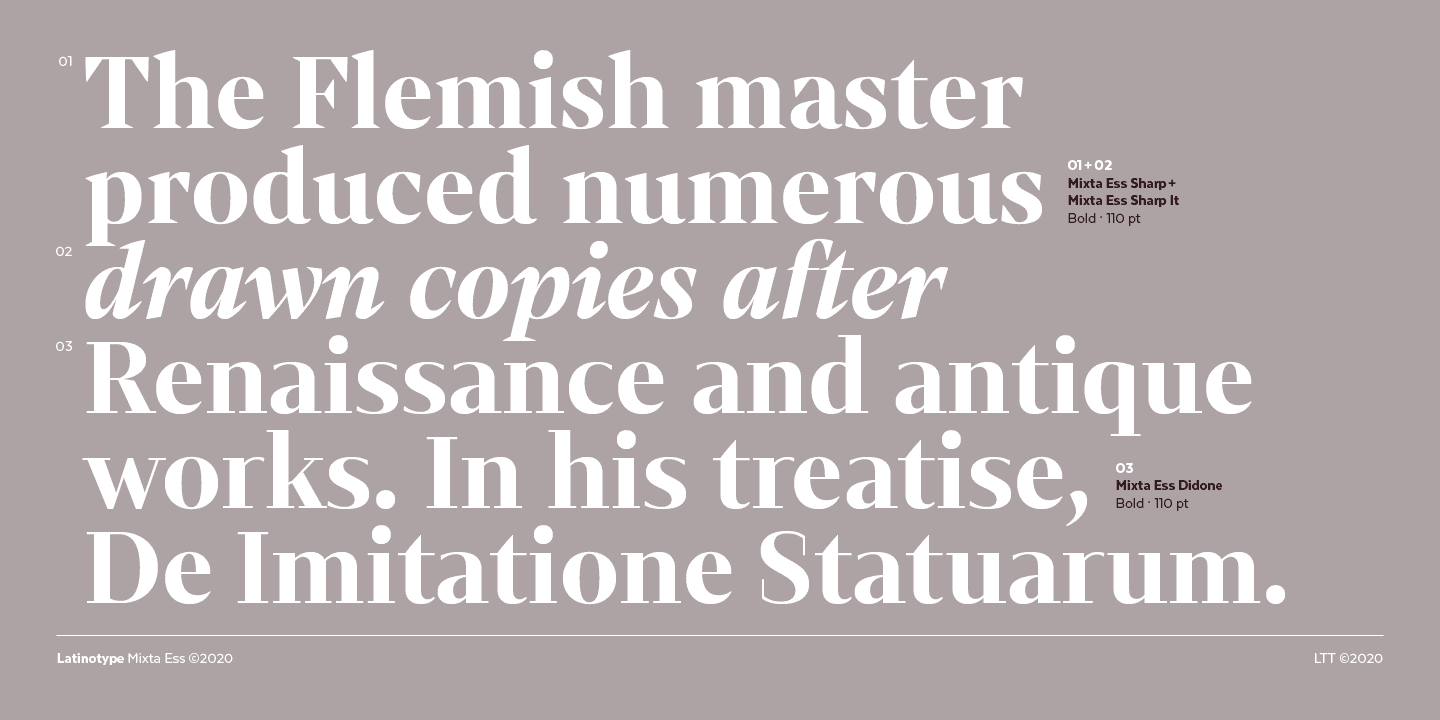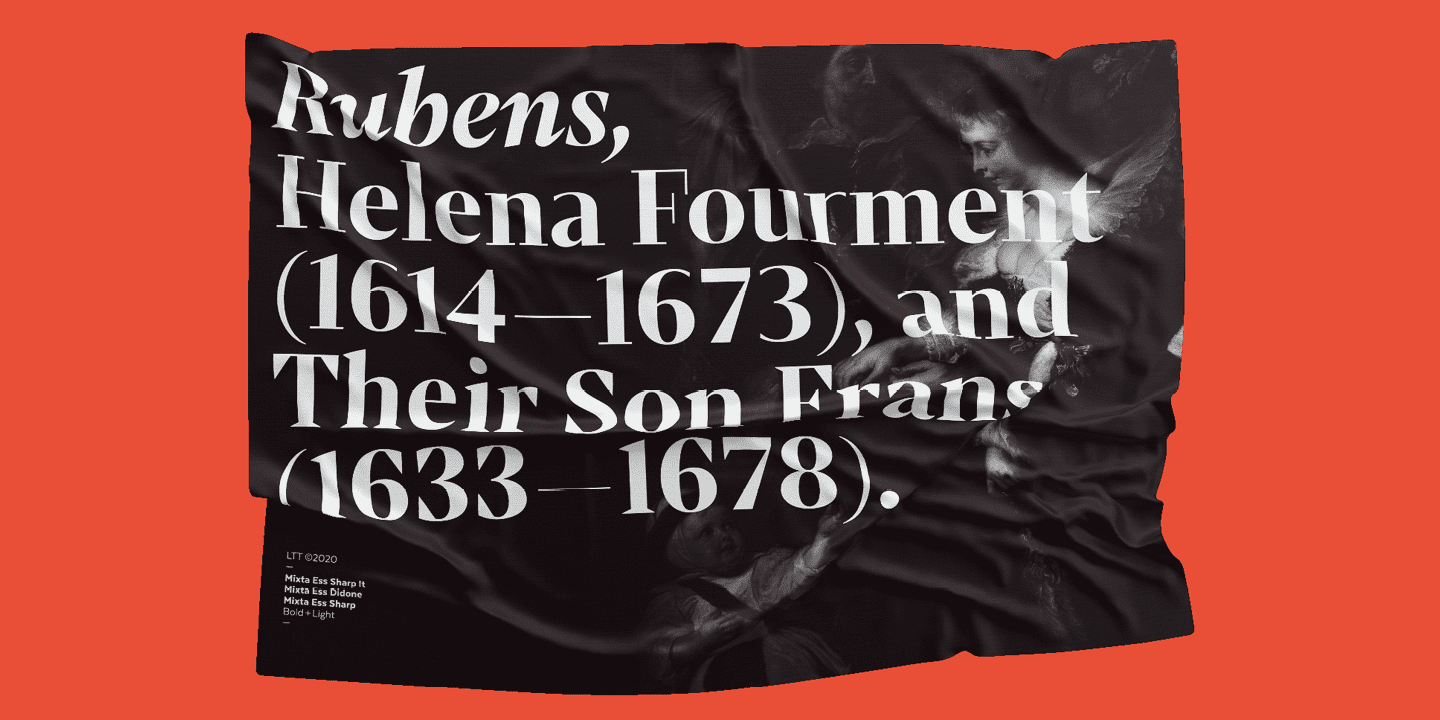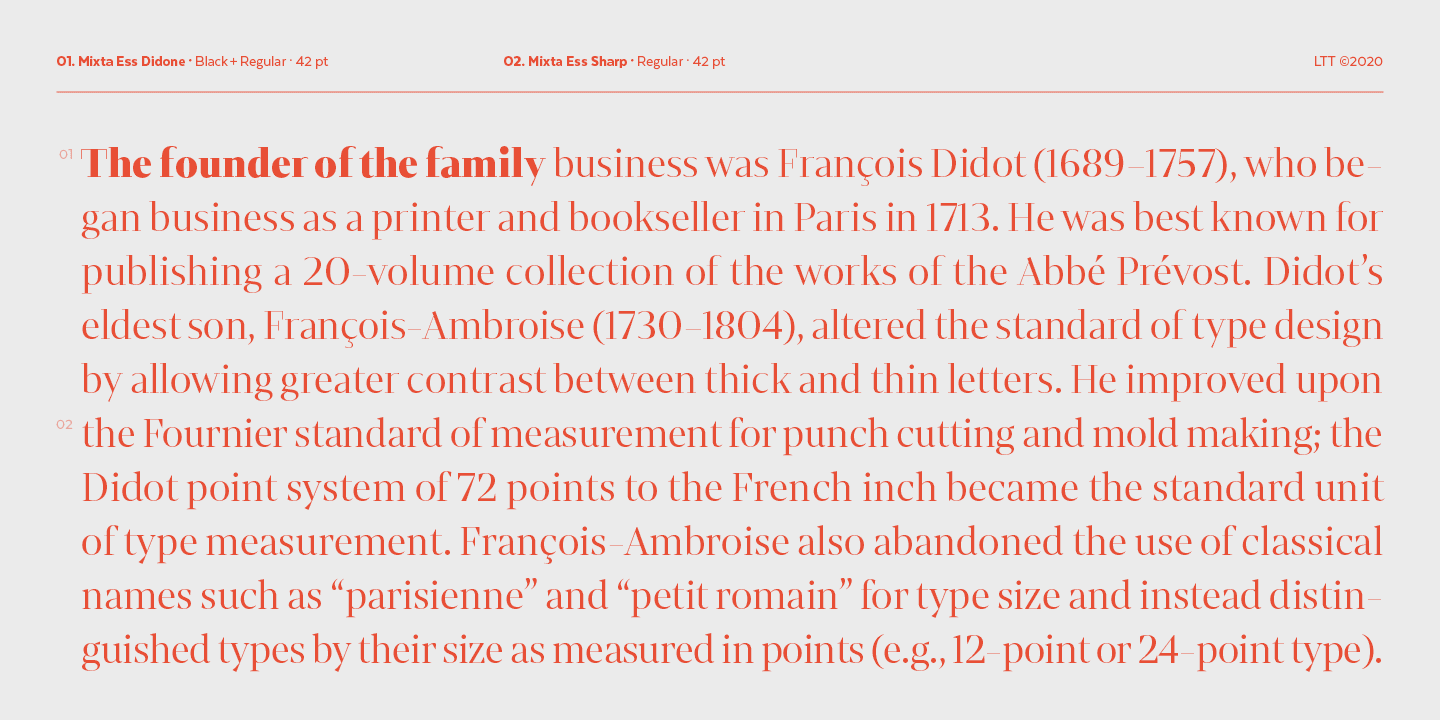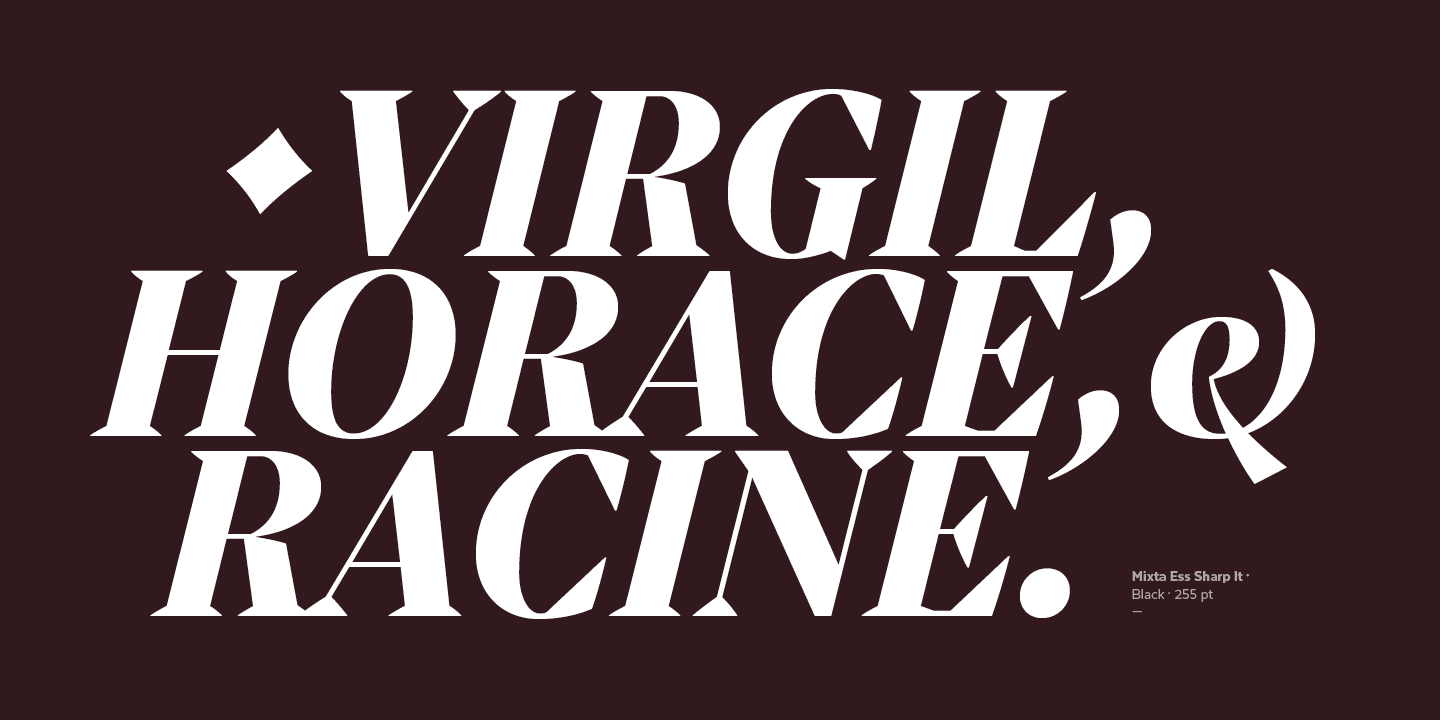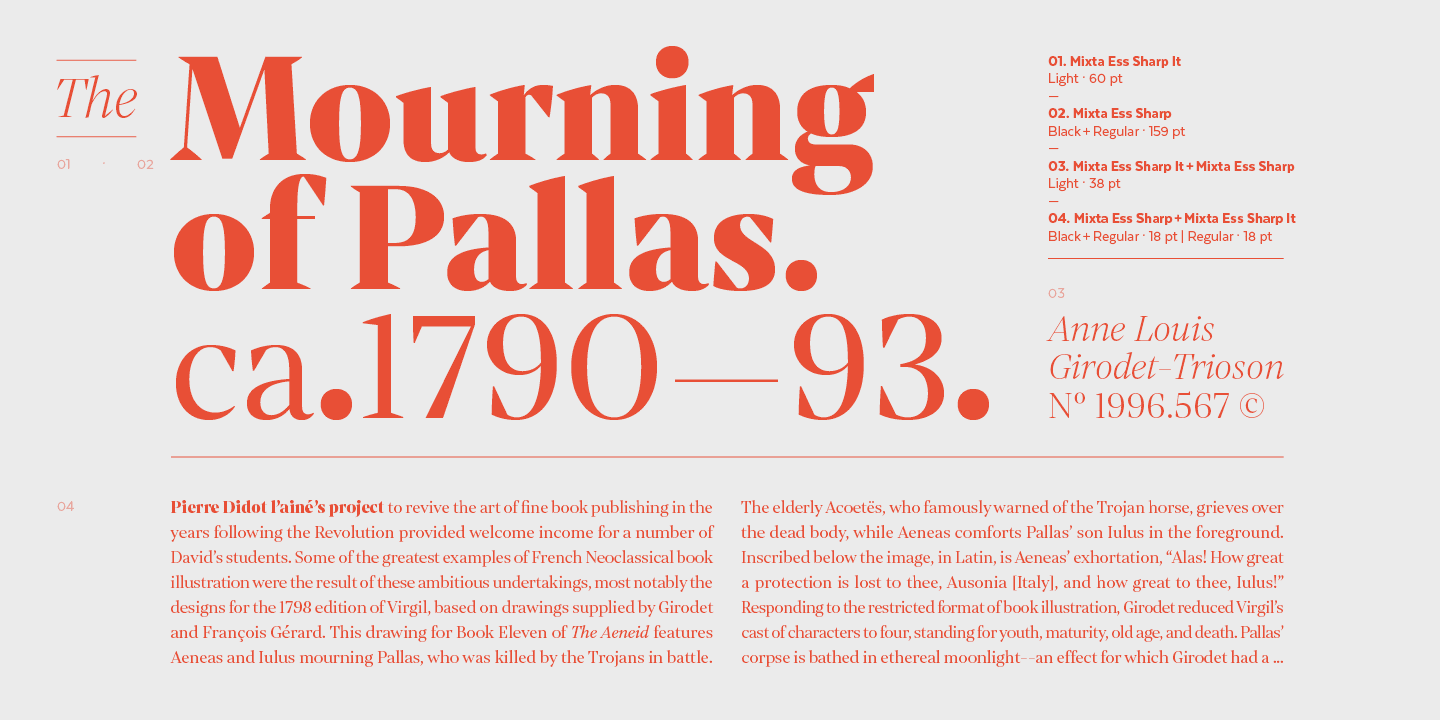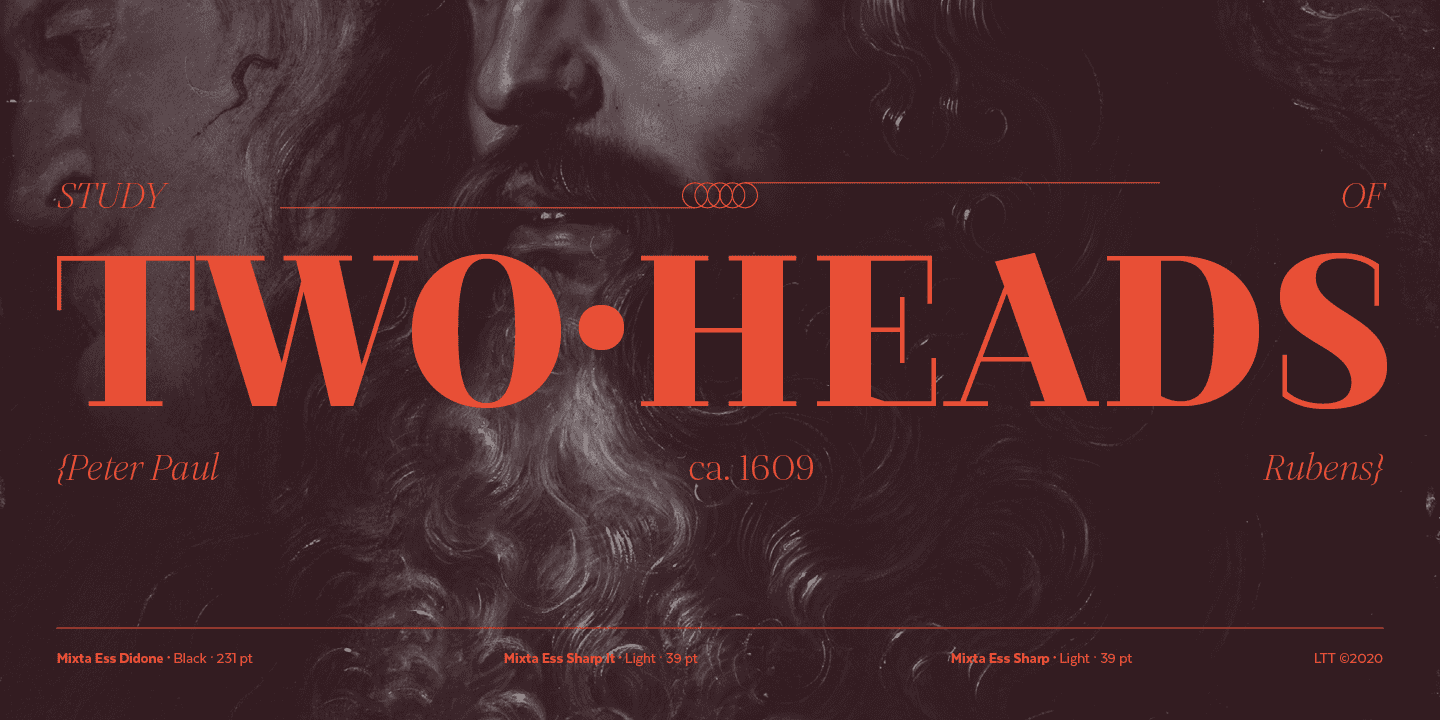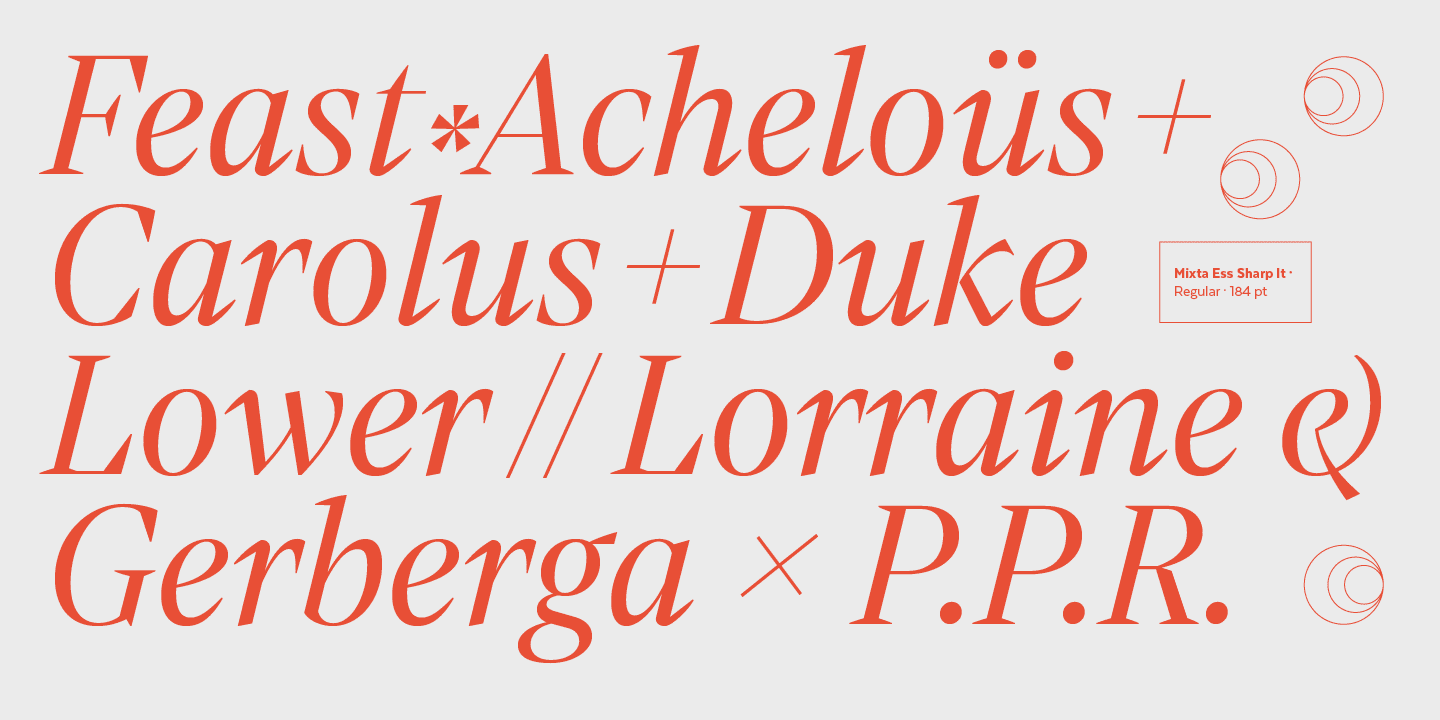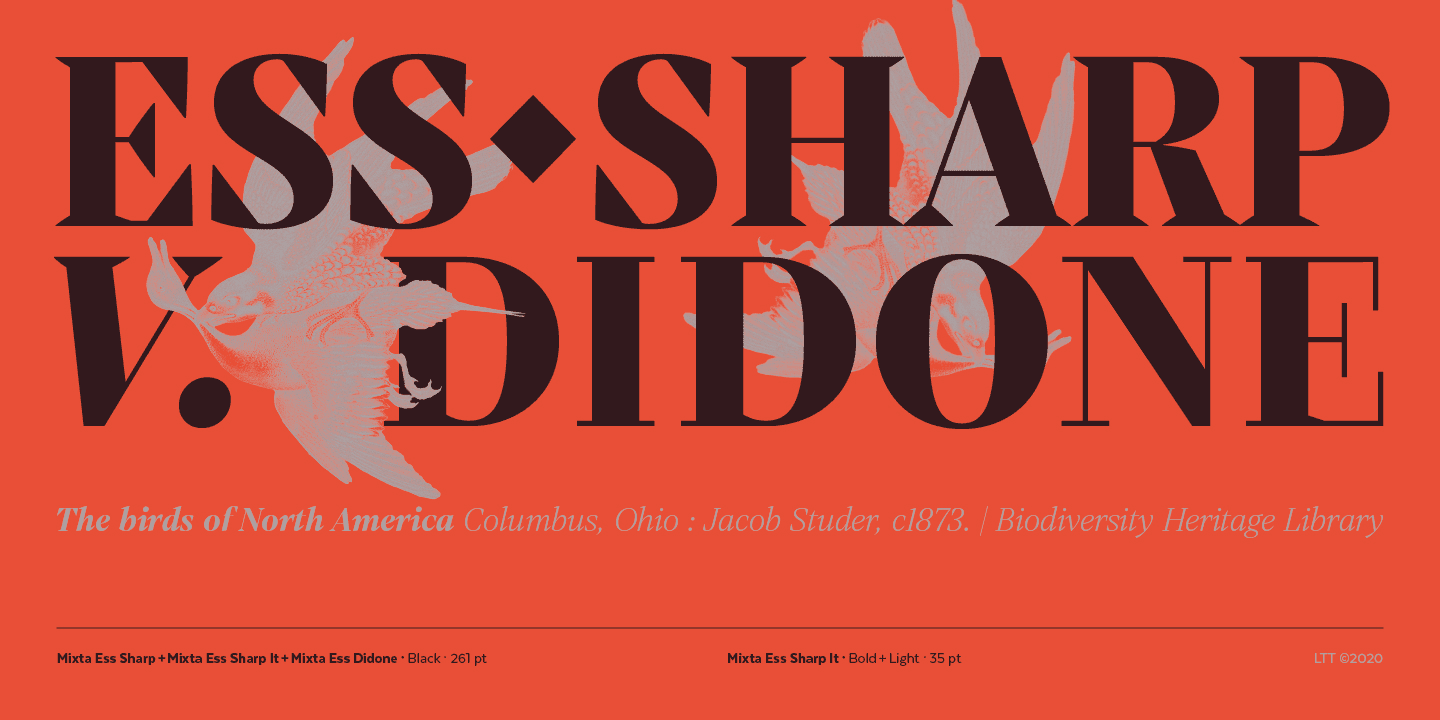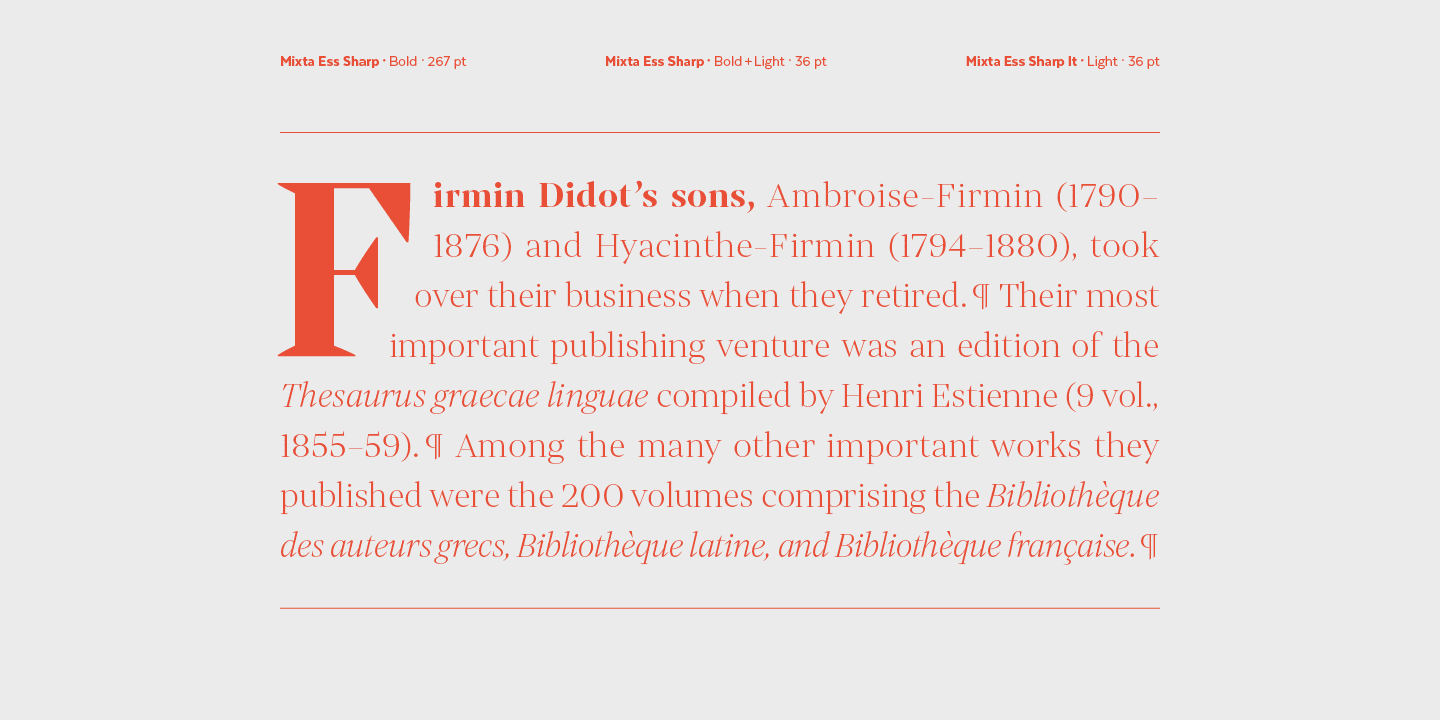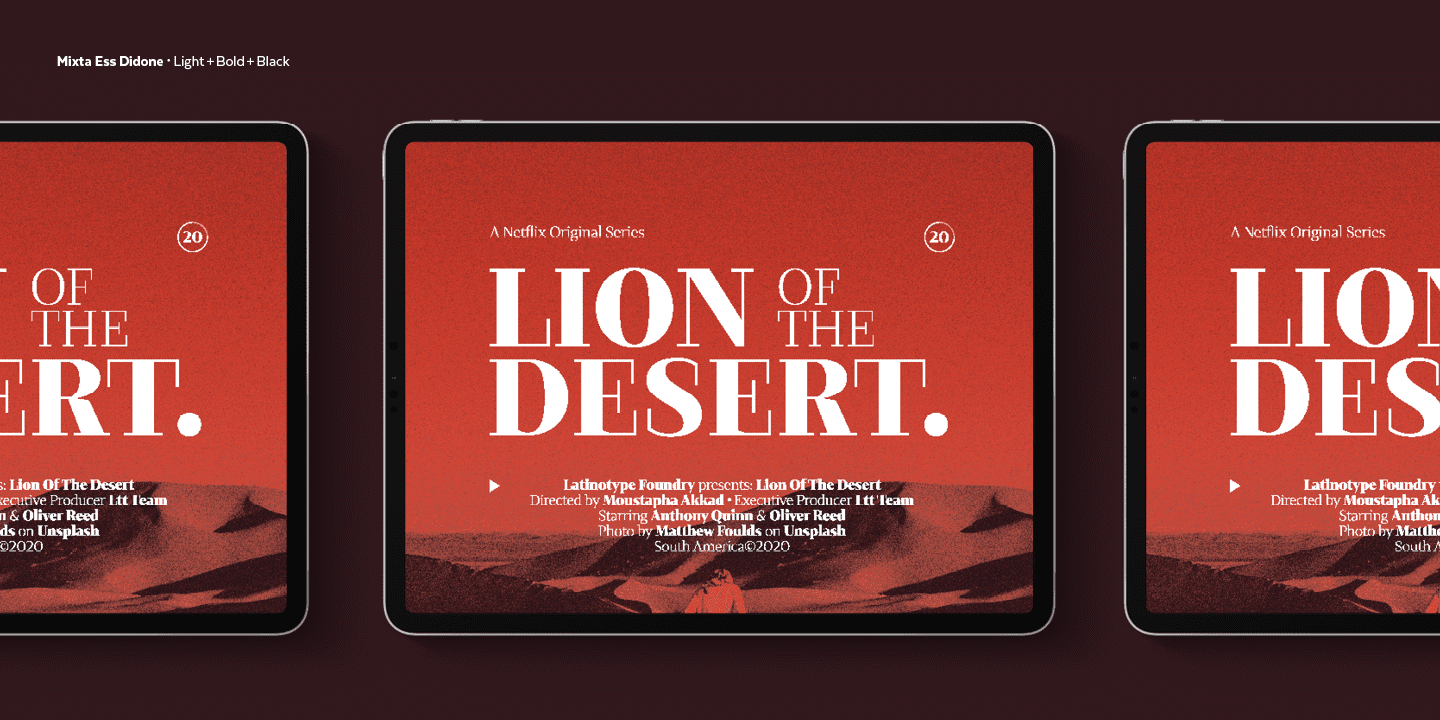
This new essential version of Mixta does not include Cyrillic support, alternate styles or OpenType features. Mixta Essential, with a basic language support, has been adapted for optimal use on macOS and Windows environments.
Mixta Essential was specially designed for branding, advertising, Tv and social media.